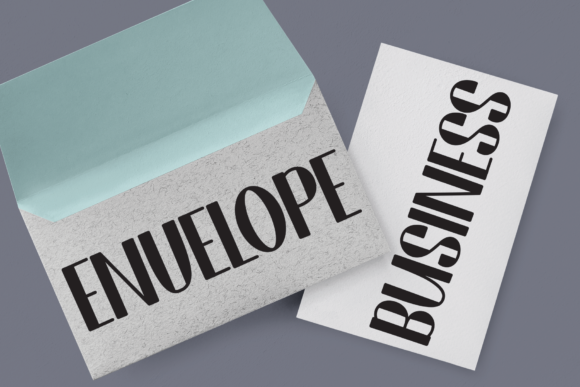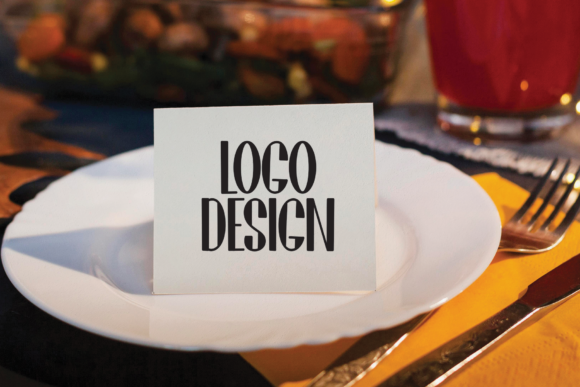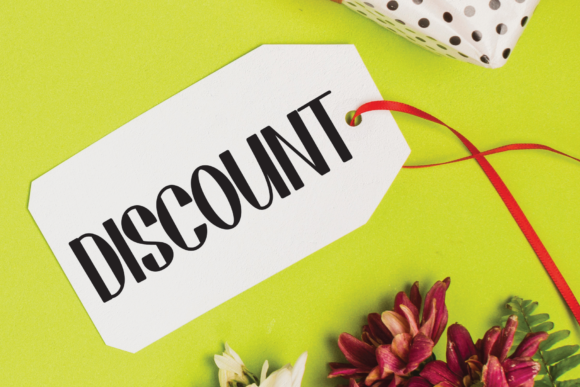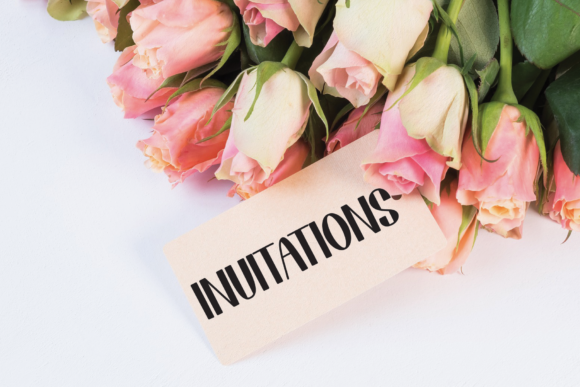
The Perfect Typography for Making a Statement
There’s something magical about staring at a blank canvas, waiting for inspiration to strike. It’s a moment when creativity knows no bounds, and the possibilities seem endless. As a designer, you’ve likely experienced this thrill, wondering what amazing project you’ll bring to life next. For me, it’s the moment when I get to choose the perfect font – the one that sets the tone, grabs attention, and elevates my design to the next level.
That’s where Bold Font comes in – a stunning sans serif font designed to make a lasting impression. With its clean lines and bold character, it’s the perfect choice for any project that requires a touch of sophistication and elegance. Whether you’re creating a wedding invitation, a social media post, or a product label, Bold Font is the perfect partner in crime.
Bold Font Key Features
- Unique Characteristic: Bold Font features a distinctive, high-contrast design that makes text easy to read in various environments.
- Font Weight: Offers a range of font weights, from Light to Extra Bold, for added flexibility.
Designer Review: Bold Font
Overall, I have mixed feelings about Bold Font. On one hand, it’s a decent option for those who want to make their text stand out. ✨ Here are a few things that work well:
- High readability: The font is indeed bold and easy to read, even at smaller font sizes.
- Good versatility: It comes in a variety of weights and styles, making it suitable for a range of design applications.
- ⚠️ Limited expressiveness: The bold style can sometimes feel a bit too loud or overpowering, lacking the nuance and sophistication of more refined fonts.
- ⚠️ Limited language support: Some languages may not be fully supported, which can lead to awkward spacing or rendering issues.
- ⚠️ Limited customization options: While the font comes in various weights and styles, there are limited options for further customization or tweaking.
Overall, I would say that Bold Font is a solid, if unremarkable, choice for designers looking for a bold font. While it gets the job done, it may not be the most exciting or inspiring option for more creative or high-end projects.
Tips for Getting the Most Out of Bold Font
Use bold font to draw attention to important information, highlight key points, or create emphasis in your design.
Experiment with different font styles and sizes to create visual hierarchy and balance in your design.
Bold font is commonly used in headings, titles, and subheadings to create visual hierarchy and draw attention to important information.
It is also used in calls-to-action, buttons, and other interactive elements to create a sense of urgency and encourage action.